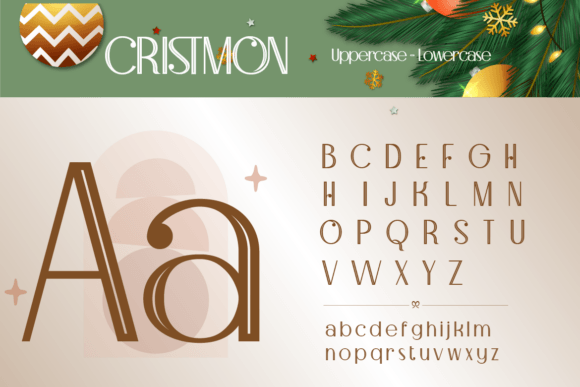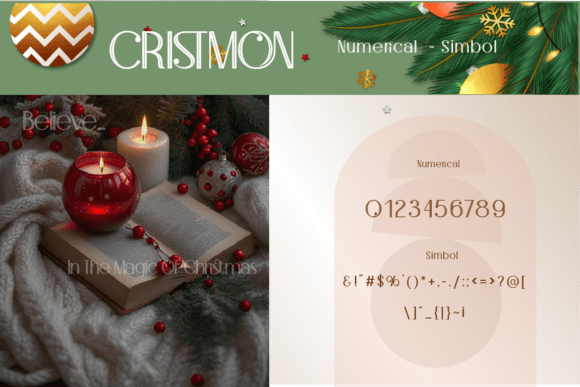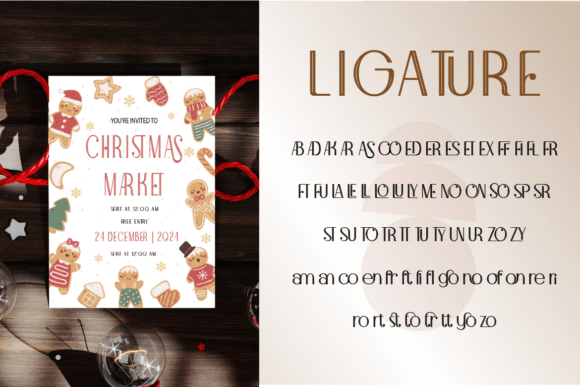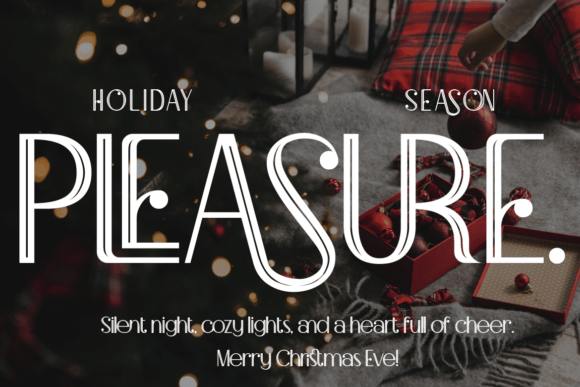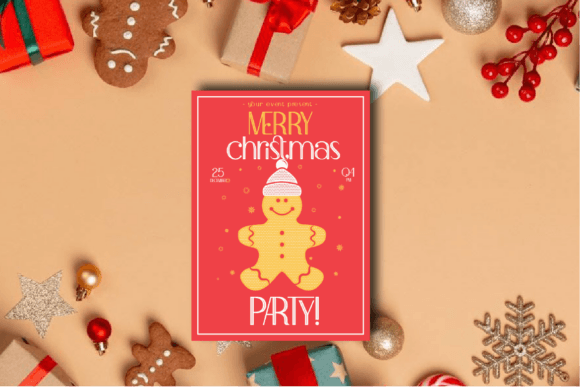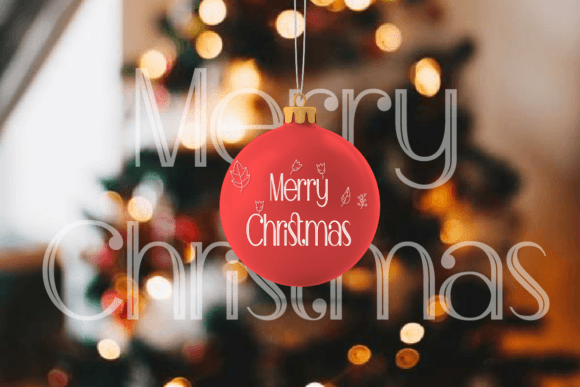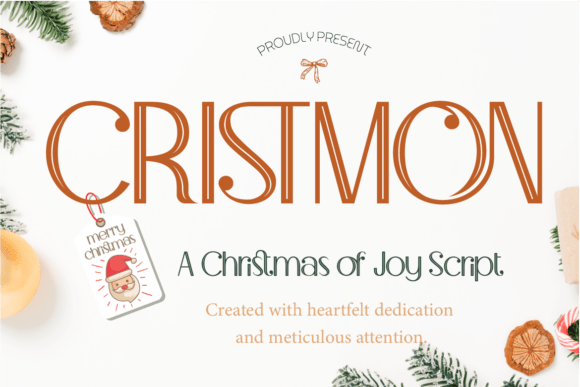
Bring the Spirit of Christmas to Life with Cristmon Font
Ho..ho..ho.. It’s the most wonderful time of the year! Are you looking for a way to add some extra cheer to your holiday designs? Look no further than the Cristmon Font! This delightful font is perfect for bringing the spirit of Christmas to life, and we’re excited to share its features and benefits with you.
What is Cristmon Font?
Cristmon Font is a unique and festive typeface designed to capture the essence of the holiday season. With its cheerful, playful, simple, and modern design, this font is sure to add a touch of magic to your creations. Whether you’re a designer, crafter, or social media enthusiast, Cristmon Font is the perfect addition to your toolkit.
Key Features of Cristmon Font
- Cheerful and Playful Design: Cristmon Font boasts a fun and lively design that’s sure to put a smile on anyone’s face.
- Simple and Modern Style: Despite its playful nature, Cristmon Font has a clean and modern aesthetic that makes it versatile and easy to use.
- Multipurpose: This font can be used for a wide range of applications, including holiday cards, gift tags, social media posts, branding, posters, invitations, greeting cards, and product tags.
Why Use Cristmon Font?
So, why choose Cristmon Font for your holiday designs? Here are just a few reasons why this font stands out:
- Adds Extra Attention: Cristmon Font is sure to grab attention and make your designs stand out from the crowd.
- Easy to Use: With its clean and simple design, Cristmon Font is easy to read and use, even for beginners.
- Versatile: This font can be used for both digital and print applications, making it a great addition to your design toolkit.
How to Use Cristmon Font
Using Cristmon Font is easy! Here are a few tips to get you started:
- Pair with Other Fonts: Cristmon Font pairs well with other fonts, so feel free to experiment with different combinations to find the perfect look for your design.
- Experiment with Colors: Don’t be afraid to try out different colors and textures to add depth and interest to your designs.
- Use for Branding: Consider using Cristmon Font for your branding materials, such as logos, business cards, and packaging.
Cristmon Font is a great choice for designers and crafters looking to add a touch of holiday cheer to their work. Whether you’re creating:
- Holiday Cards: Add a personal touch to your holiday cards with Cristmon Font.
- Gift Tags: Make your gifts stand out with custom gift tags featuring Cristmon Font.
- Social Media Posts: Add some holiday cheer to your social media posts with Cristmon Font.
- Branding Materials: Use Cristmon Font to create festive branding materials, such as logos, business cards, and packaging.
In conclusion, Cristmon Font is a fun and festive typeface that’s perfect for bringing the spirit of Christmas to life. With its cheerful, playful, simple, and modern design, this font is sure to add extra attention and stand out to your creations. Whether you’re a designer, crafter, or social media enthusiast, Cristmon Font is a great addition to your toolkit. So why wait? Download Cristmon Font today and start creating your own holiday magic!